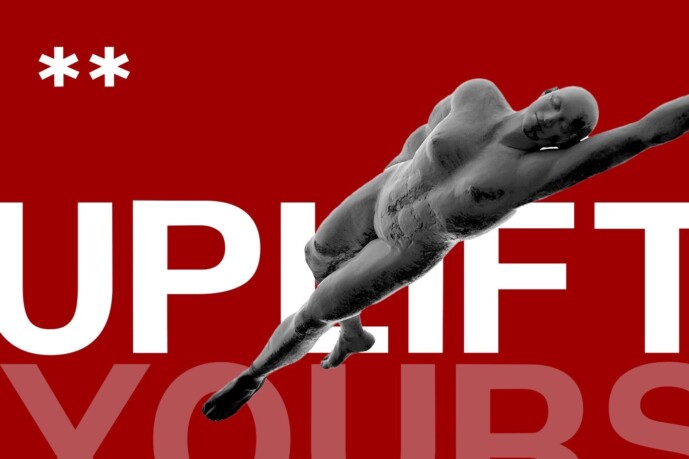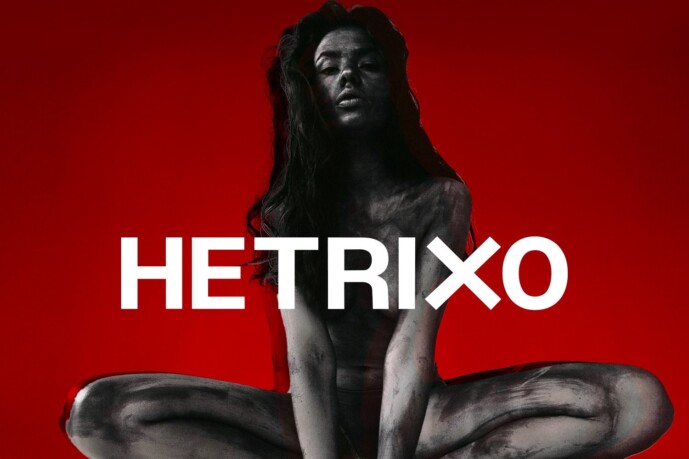
Hetrixo Font
Designer: Foxtype
Hetrixo Font, a meticulously crafted modern sans serif typeface that’s ideal for a wide range of design projects. With 50 versatile weights, Hetrixo excels at creating striking headlines, captivating posters, and sophisticated branding materials . Its clean lines and contemporary style make it an ideal choice for * magazine covers, logos, paragraph text and more.